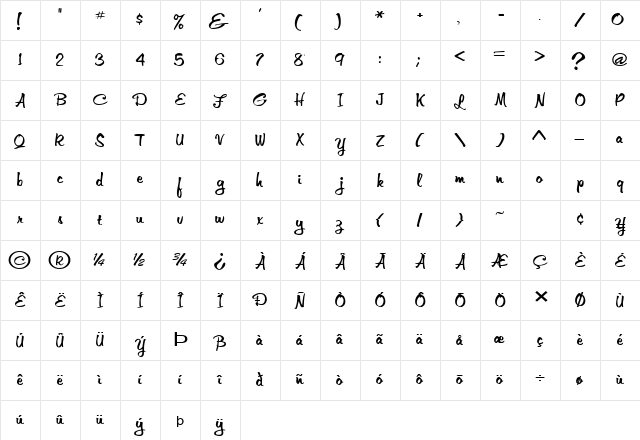
Memo-Extended Normal Free Font
Memo-Extended Normal
Memo-Extended Family
Memo-Extended Normal
Design Context for Memo-Extended
Memo-Extended is a composed and adaptable typeface that performs quietly and consistently across a wide range of design contexts.